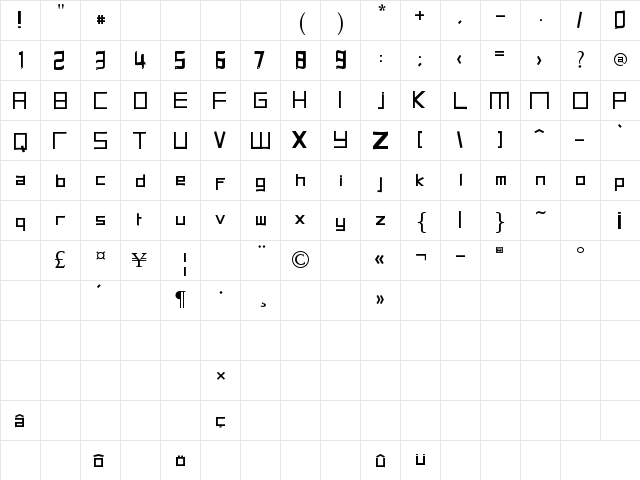
Halit's Font! Regular
Design Context for Halit's Font! Typeface
Halit's Font! takes a measured approach to typography — its balanced proportions and neutral character make it a reliable workhorse for both digital and print work.